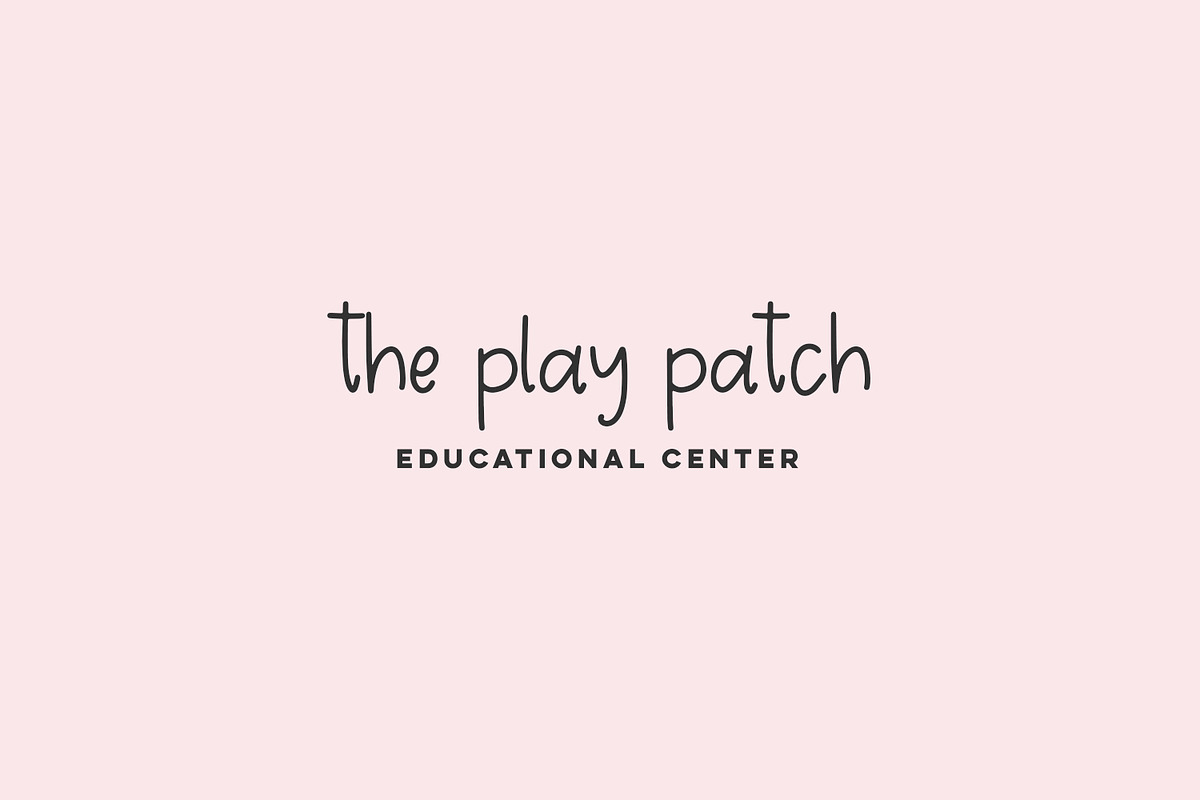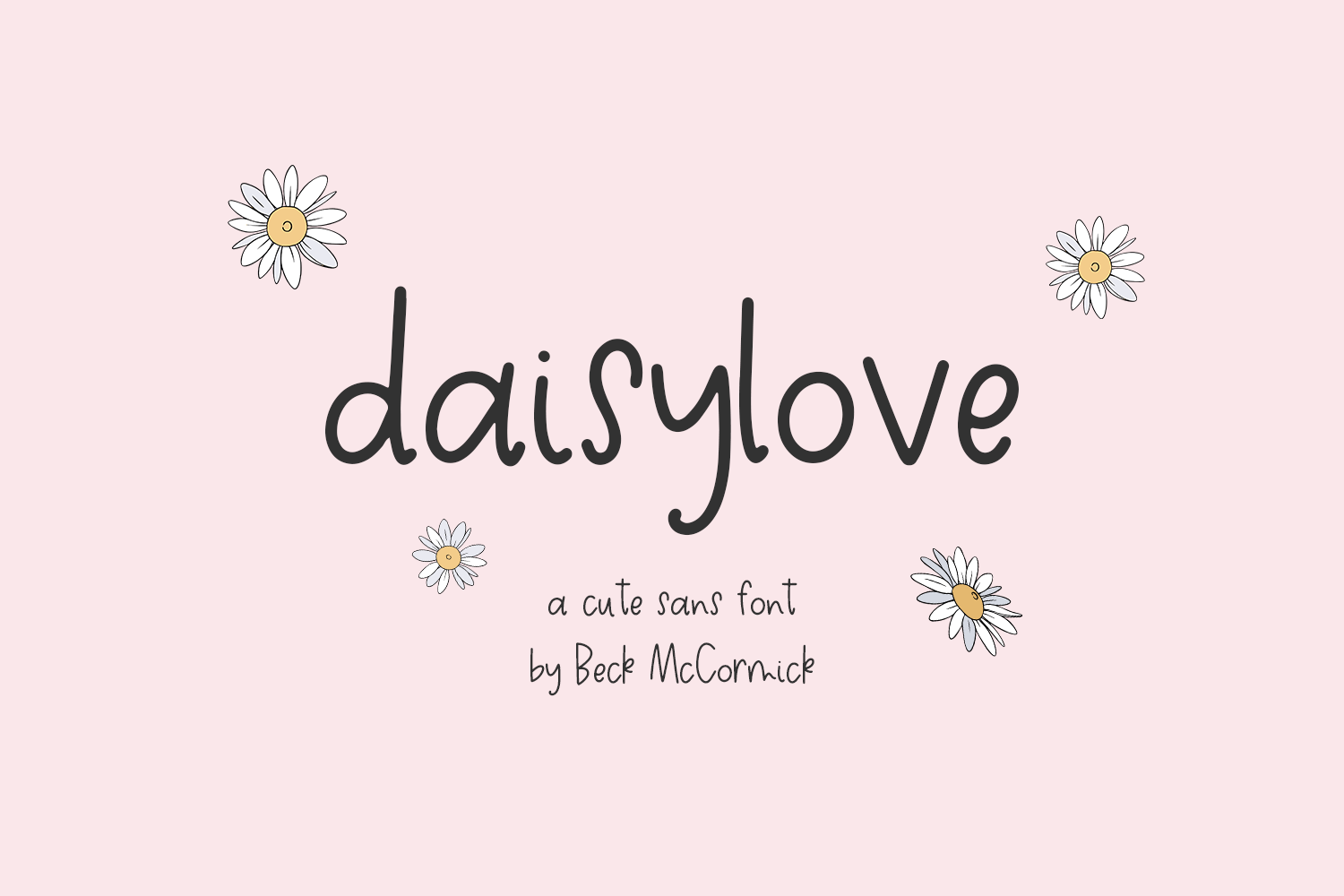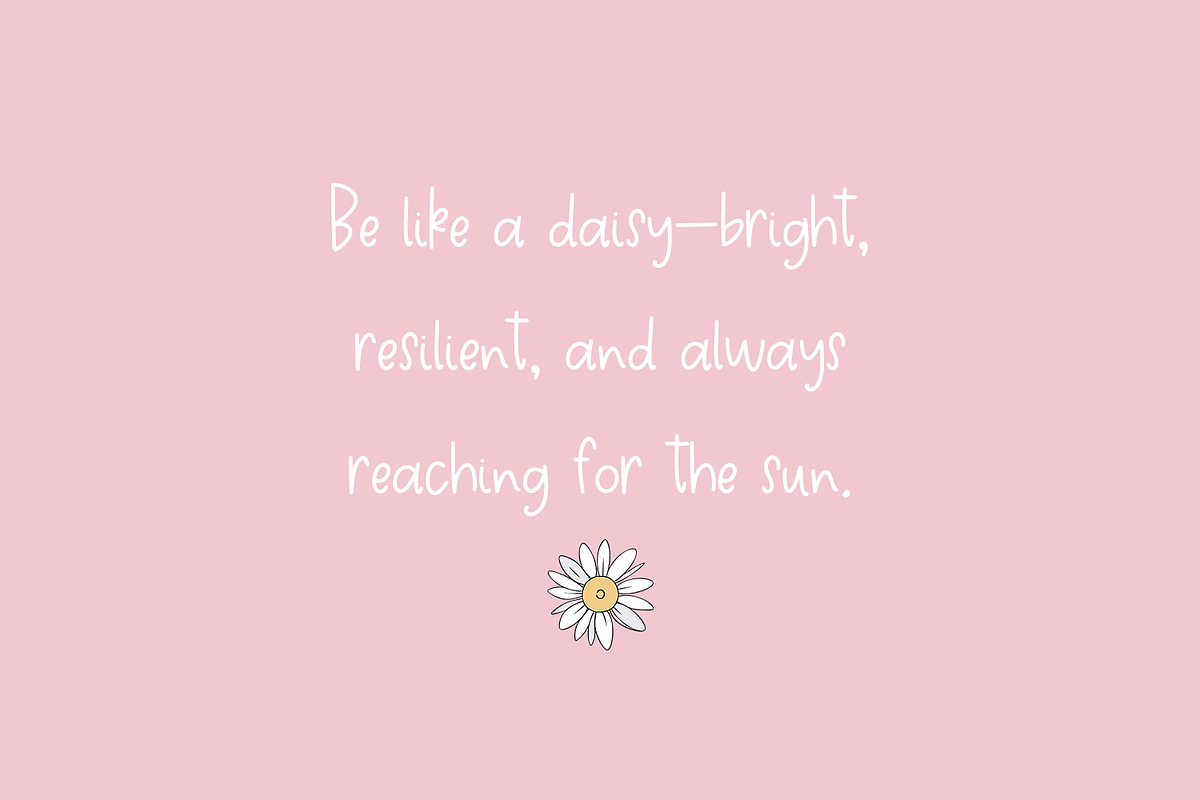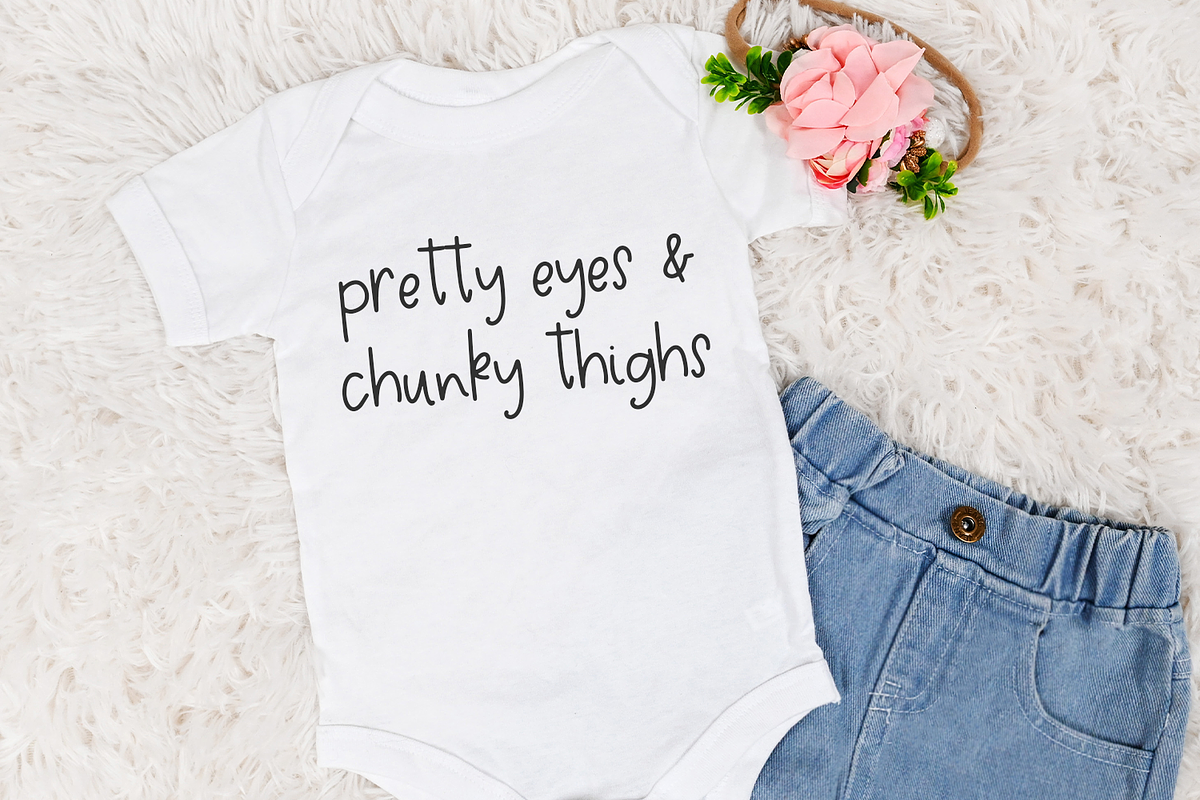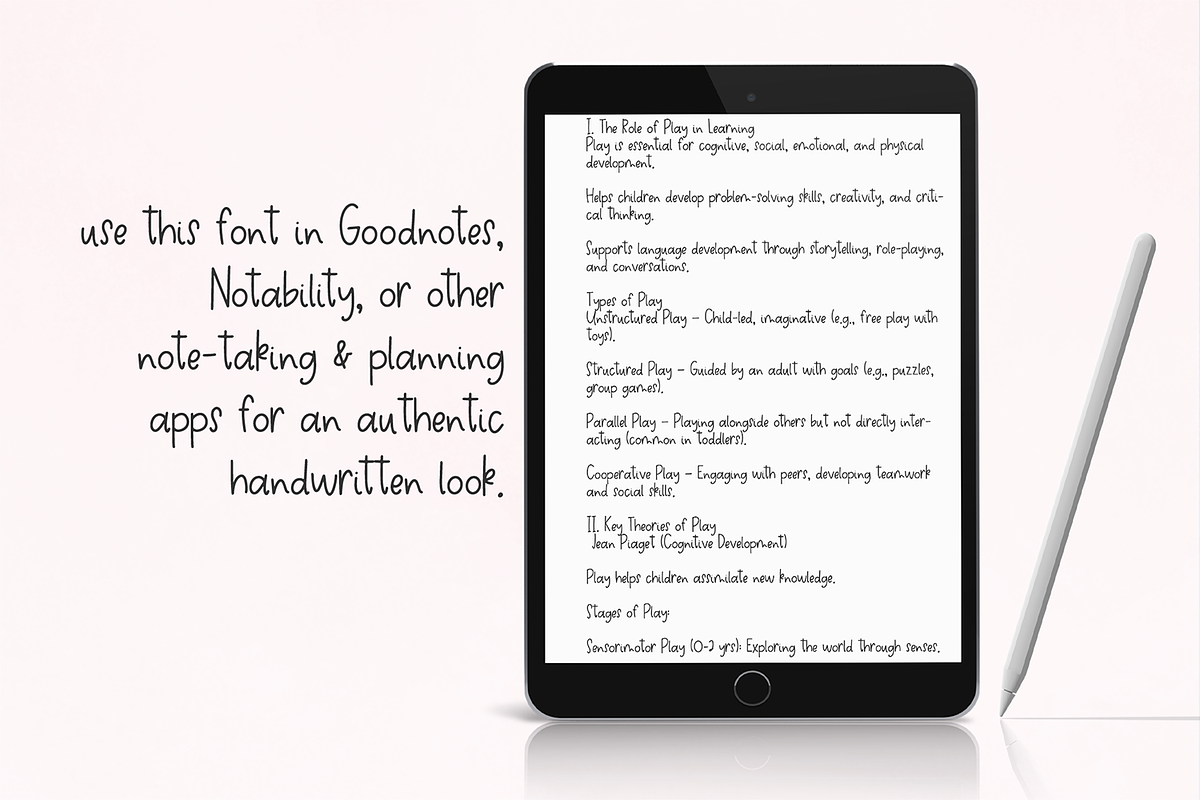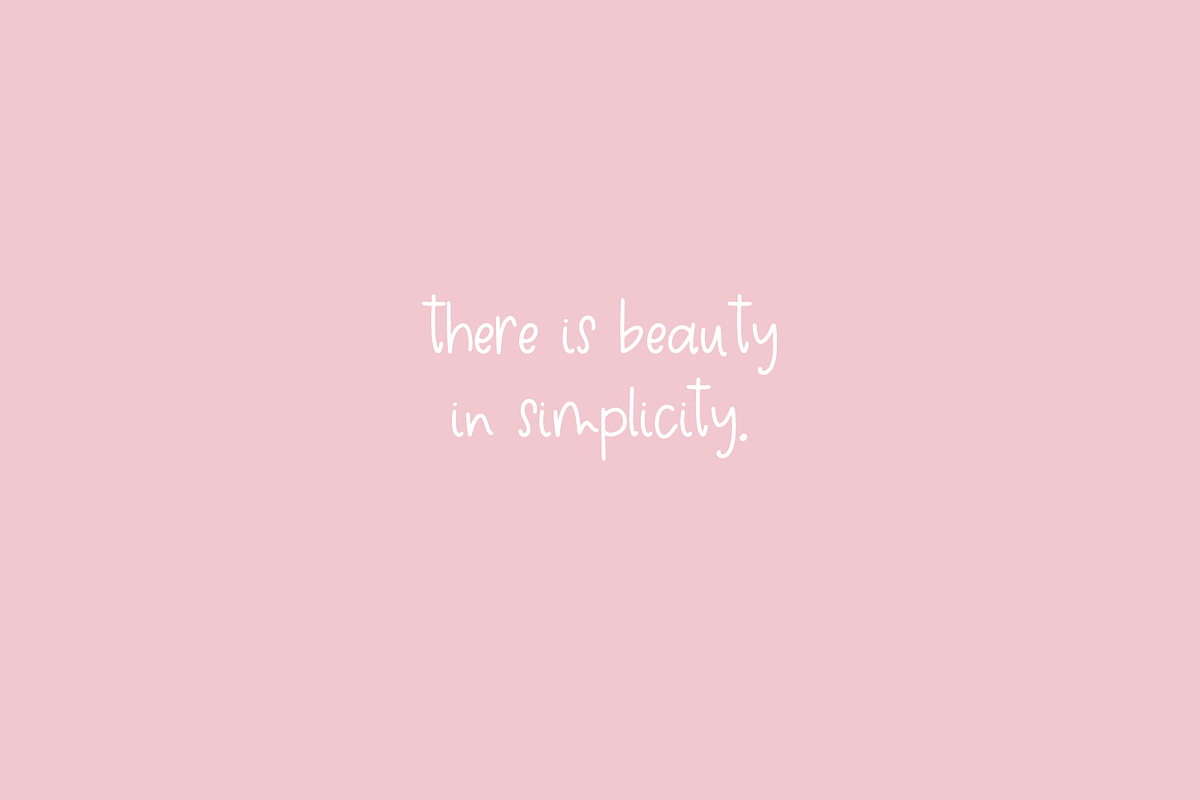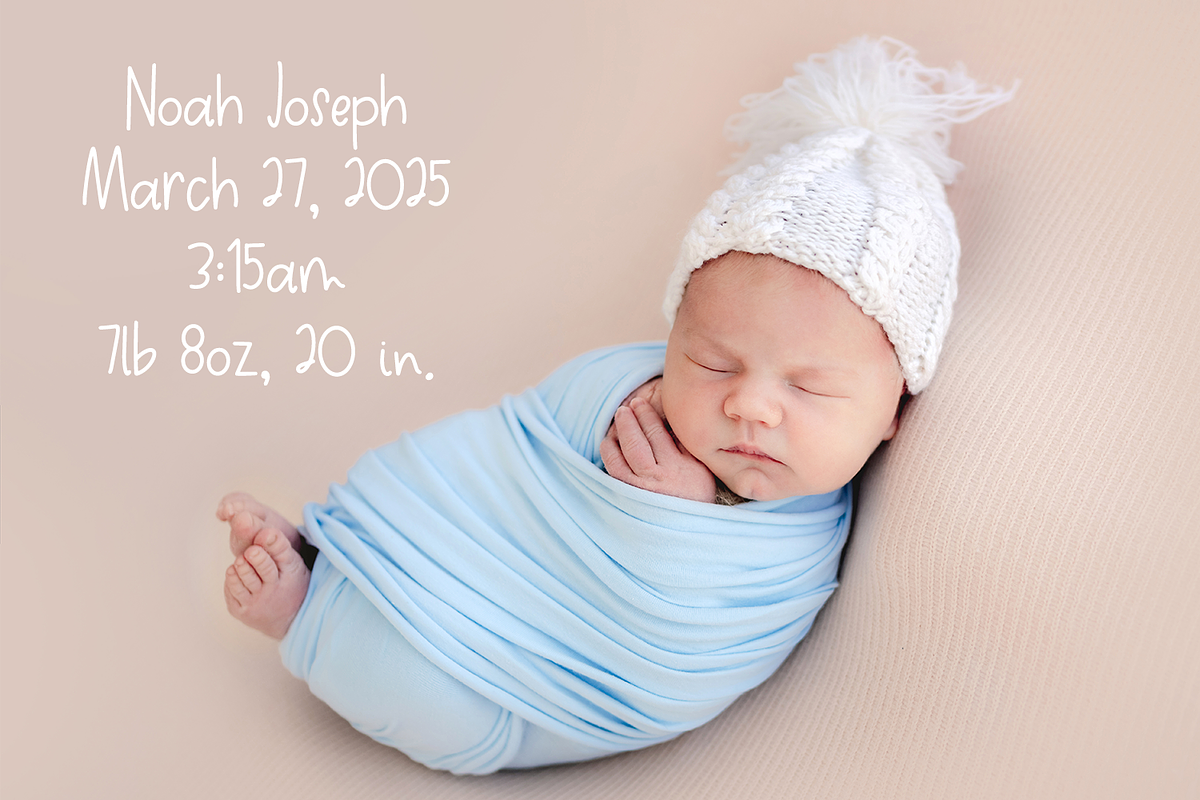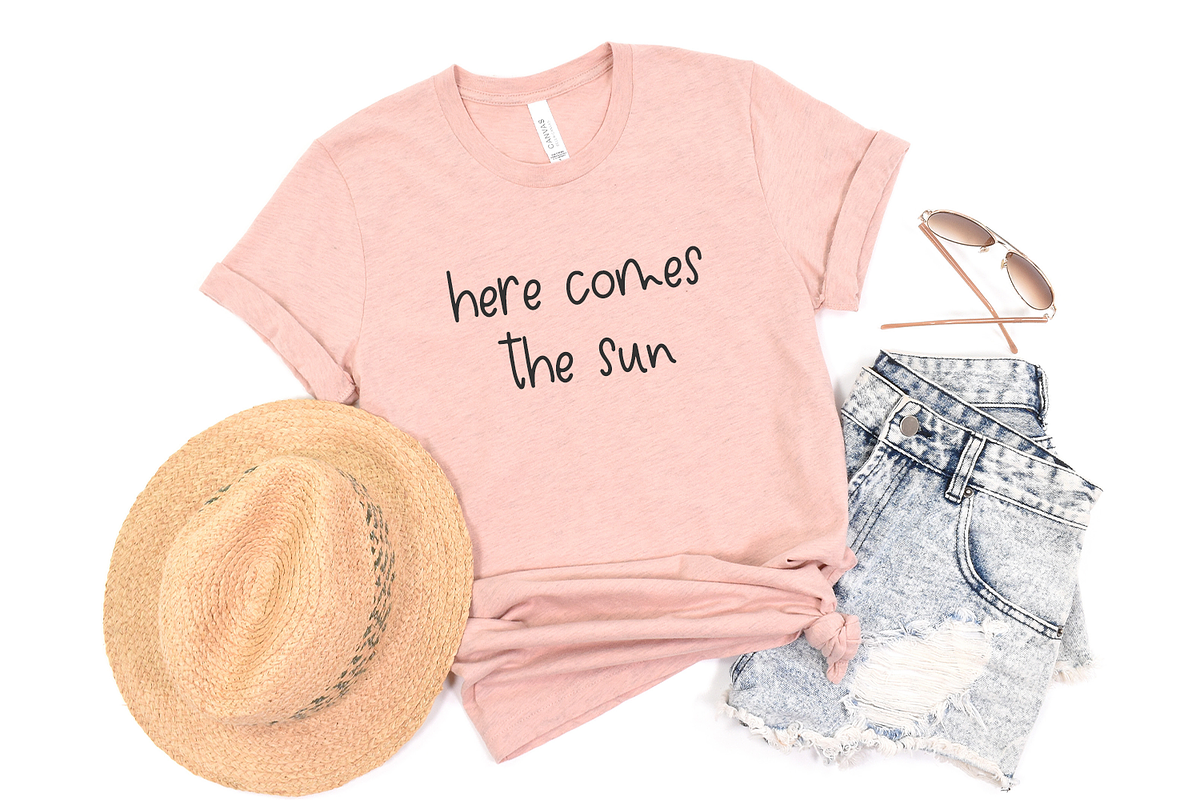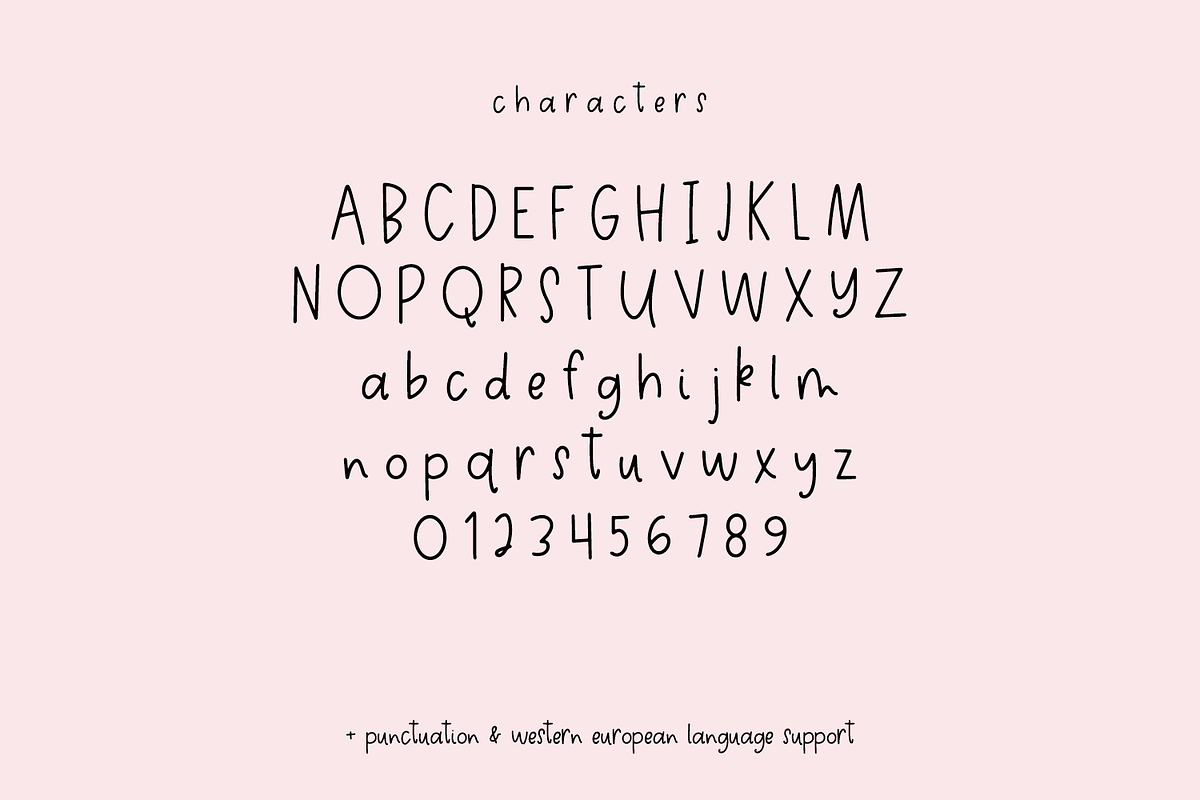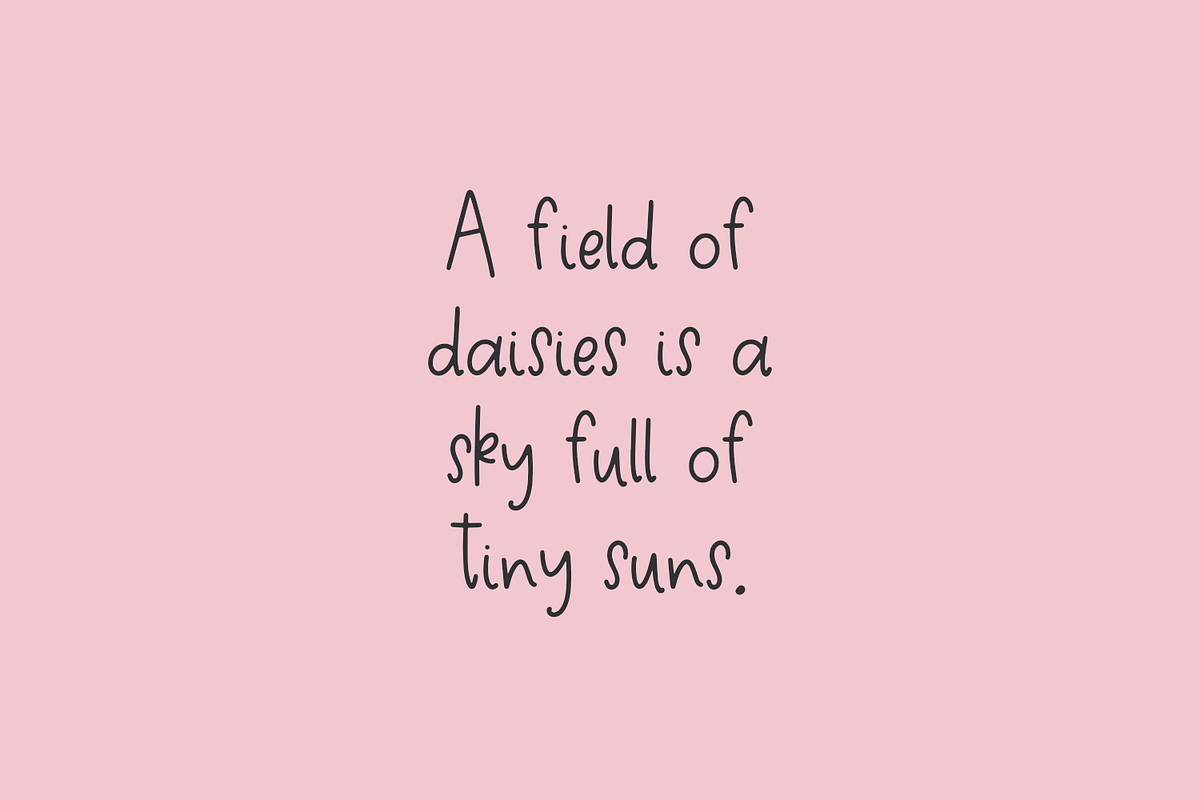
Daisylove Sans - A Handwriting Font
Daisylove Sans is a cute handwritten sans font. This font is neat & tidy with a childlike quality. Daisylove Sans is perfect for logos & branding, greeting cards, painted banners, digital planners, note-taking apps, Canva, Cricut projects, Silhouette projects, designing SVG files, laser cutting projects, & more.
- full upper + lowercase characters
- numbers + punctuation
- Western European language support - English, French, Spanish, Portuguese (Brazil), Portuguese (Portugal), Italian, German (Germany), German (Austria), Dutch, Danish, Swedish, Norwegian (Bokmål and Nynorsk), Finnish, Icelandic, Irish, Welsh